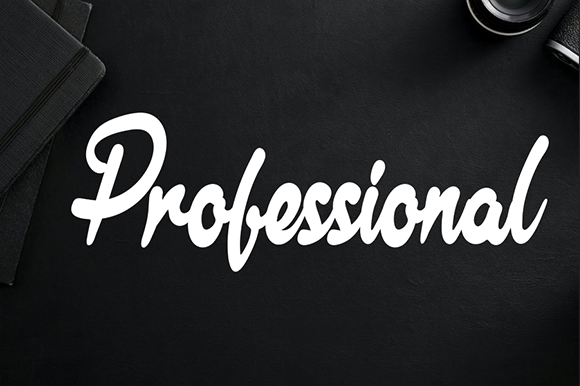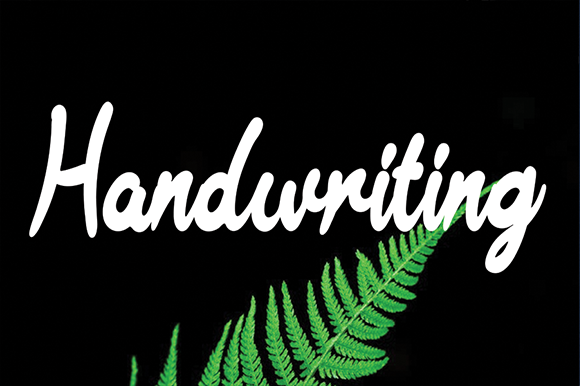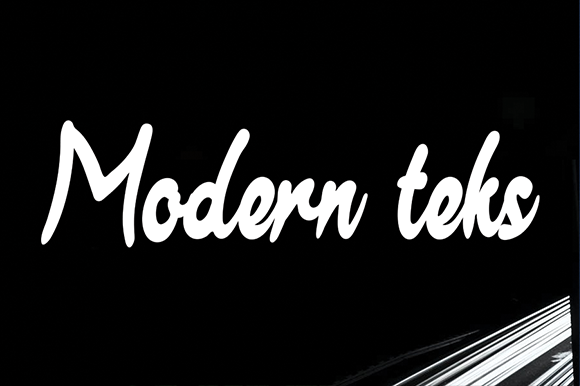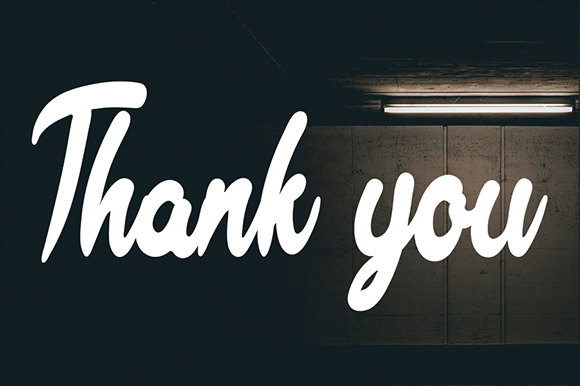
Gallileo Font: The Ultimate Choice for Creative Projects
Are you a designer, crafter, or DIY enthusiast looking for a font that can add a personal touch to your creative projects? Look no further than the Gallileo Font! This cute and casual handwritten font is designed to bring a friendly feel to any design, making it perfect for a wide range of applications.
What is Gallileo Font?
Gallileo is a beautifully crafted handwritten font that exudes warmth and approachability. Its unique character set and delicate strokes make it an excellent choice for designs that require a personal and human touch. Whether you’re creating social media graphics, crafting DIY projects, or designing calligraphy scripts, Gallileo Font is the perfect companion.
Key Features of Gallileo Font
- Cute and Casual Design: Gallileo Font boasts a playful and informal design that is sure to capture the attention of your audience.
- Handwritten Style: The font’s handwritten style gives it a unique and personal feel that is perfect for designs that require a human touch.
- Incredibly Friendly Feel: The font’s friendly feel makes it perfect for designs that require a approachable and welcoming tone.
- Multipurpose: Gallileo Font can be used for a wide range of applications, including Instagram graphics, DIY projects, calligraphy scripts, and more.
Why Choose Gallileo Font?
So, why should you choose Gallileo Font for your creative projects? Here are just a few reasons:
- Easy to Read: The font’s clear and legible design makes it easy to read, even at small sizes.
- Highly Versatile: Gallileo Font can be used for a wide range of applications, from social media graphics to DIY projects.
- Unique and Personal: The font’s handwritten style gives it a unique and personal feel that is sure to make your designs stand out.
- Perfect for Designers and Crafters: Whether you’re a professional designer or a DIY enthusiast, Gallileo Font is the perfect choice for any creative project.
In conclusion, Gallileo Font is a versatile and unique handwritten font that is perfect for designers, crafters, and DIY enthusiasts. Its cute and casual design, incredibly friendly feel, and multipurpose nature make it an excellent choice for a wide range of creative projects. Whether you’re looking for fonts for Instagram or calligraphy scripts for DIY projects, Gallileo Font is the ultimate choice. So why wait? Download Gallileo Font today and turn your creative ideas into true pieces of art!